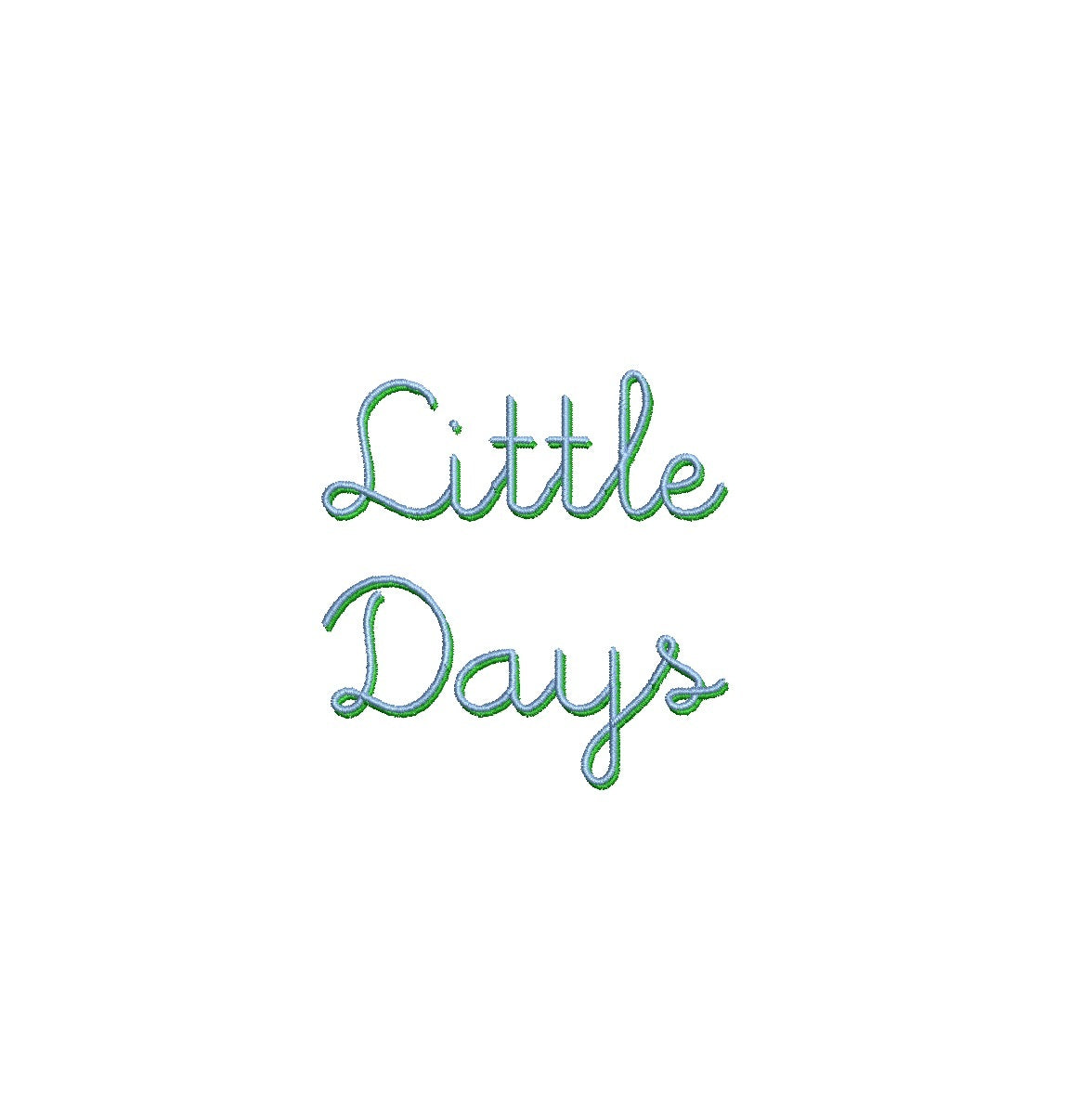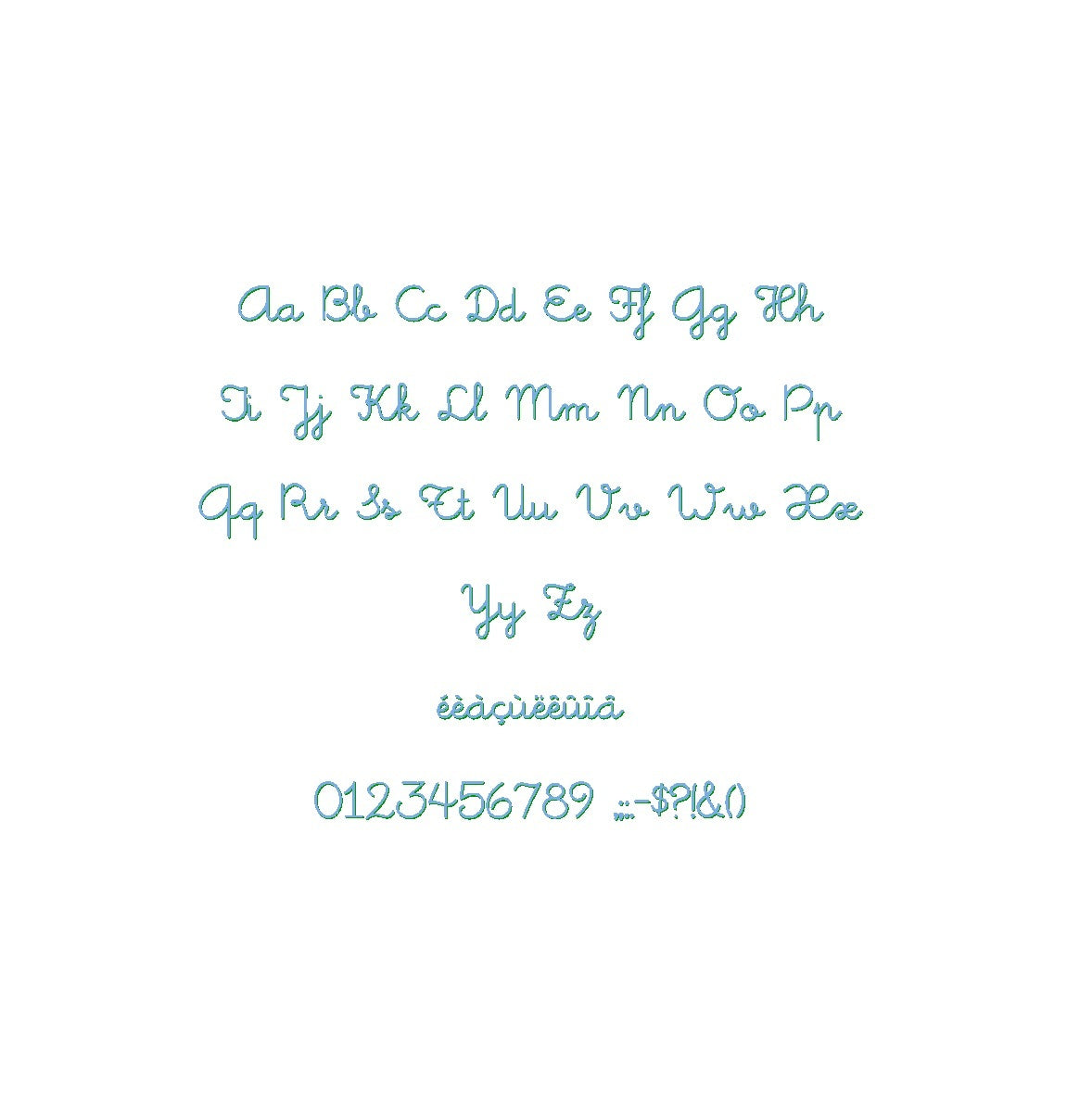
Elevate your designs with the whimsical Little Days Shadow ESA font. Fully compatible with Wilcom Studio e4.5.6 and Hatch 3 versions and up, this font infuses your projects with a touch of playful creativity and youthful charm. The font's delightful shadows and lively lines create a captivating visual impact that sets your designs apart. Streamline your creative process and achieve flawless results by utilizing this font with industry-leading software. Upgrade your projects with the compatibility of Little Days Shadow ESA font and craft visuals that resonate with a sense of joy. Embrace creativity and lightheartedness for your design journey today!